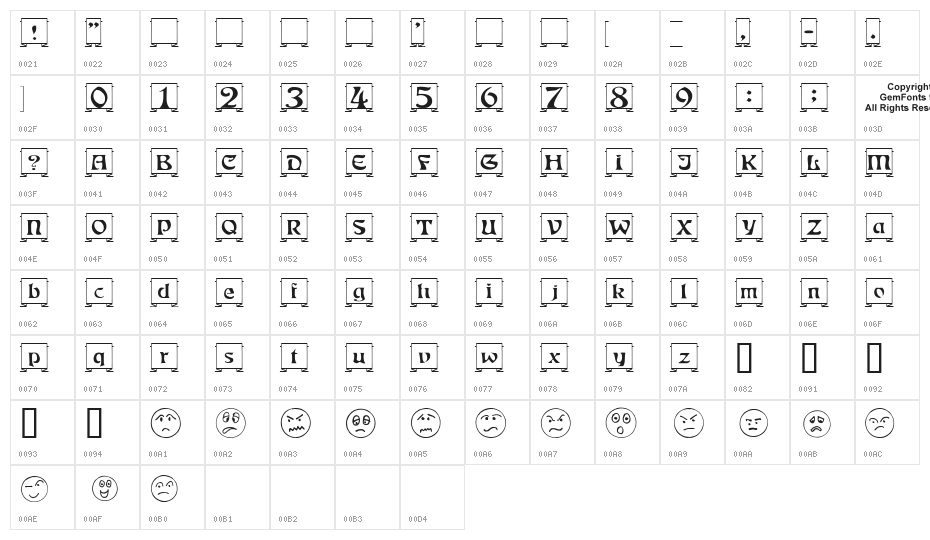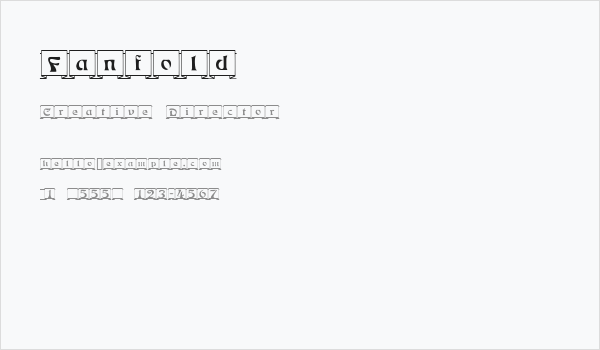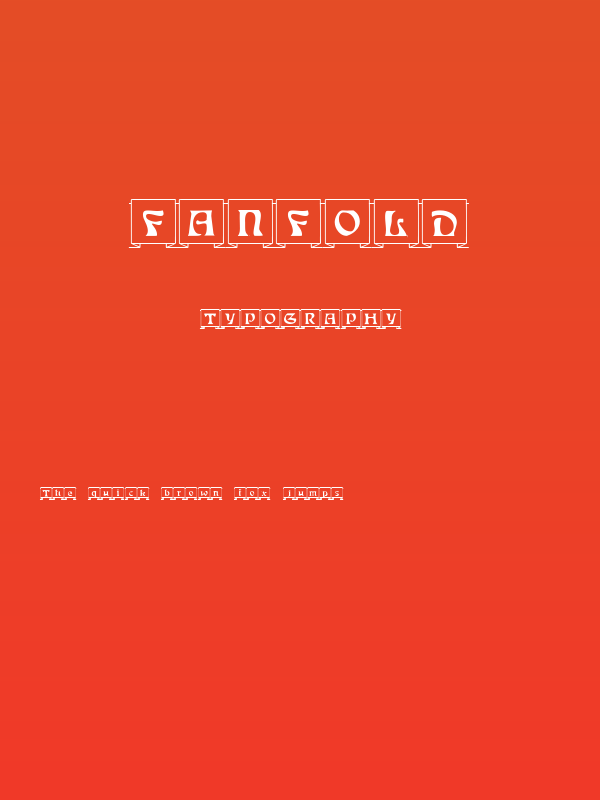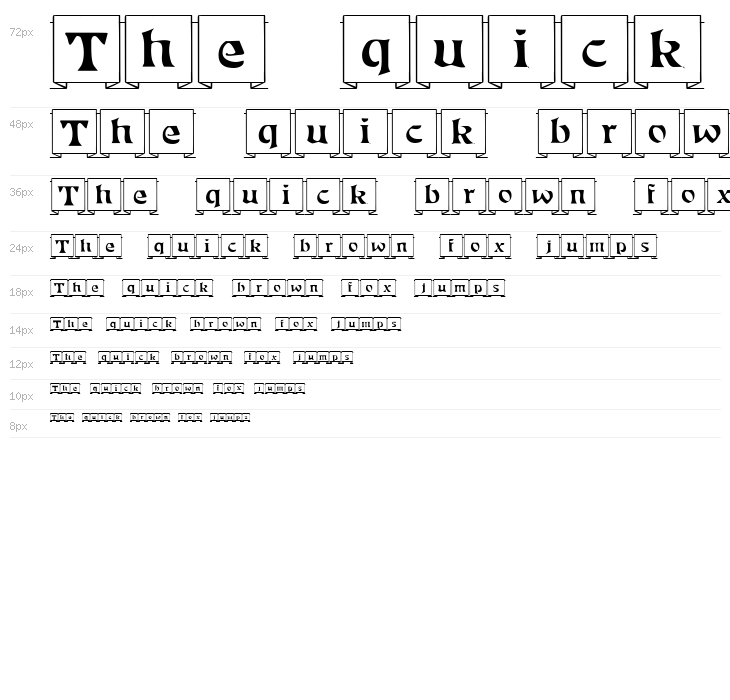
Fanfold Font
Fanfold Description
This font features a unique and decorative style, reminiscent of medieval or fantasy themes. Each character is enclosed in a scroll-like frame, adding an ornamental touch that makes it stand out. The letters have a bold, blackletter influence with sharp angles and intricate details. The numbers and special characters maintain the same decorative framing, ensuring consistency across all glyphs. This font is ideal for projects that require a touch of elegance and historical flair, such as themed invitations, fantasy book covers, or role-playing game materials.
| Proposed Projects | Ideal for fantasy book covers, themed invitations, or role-playing game materials. |